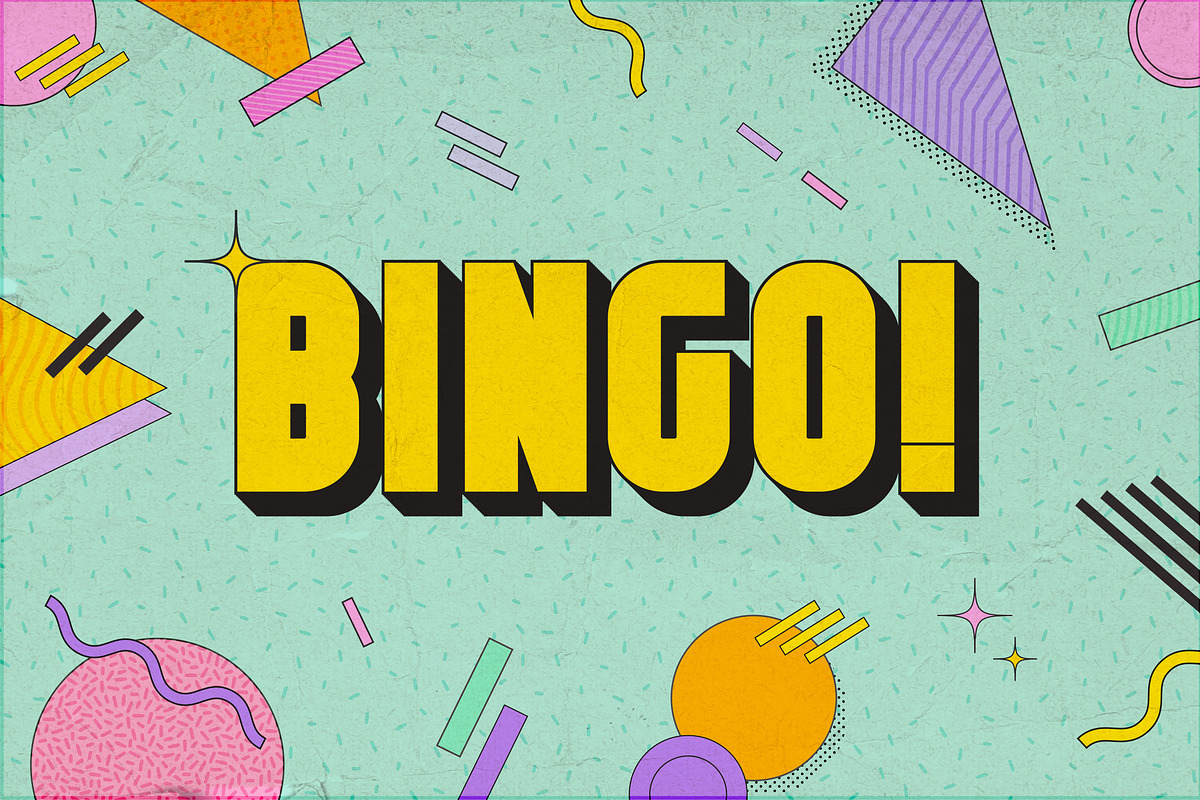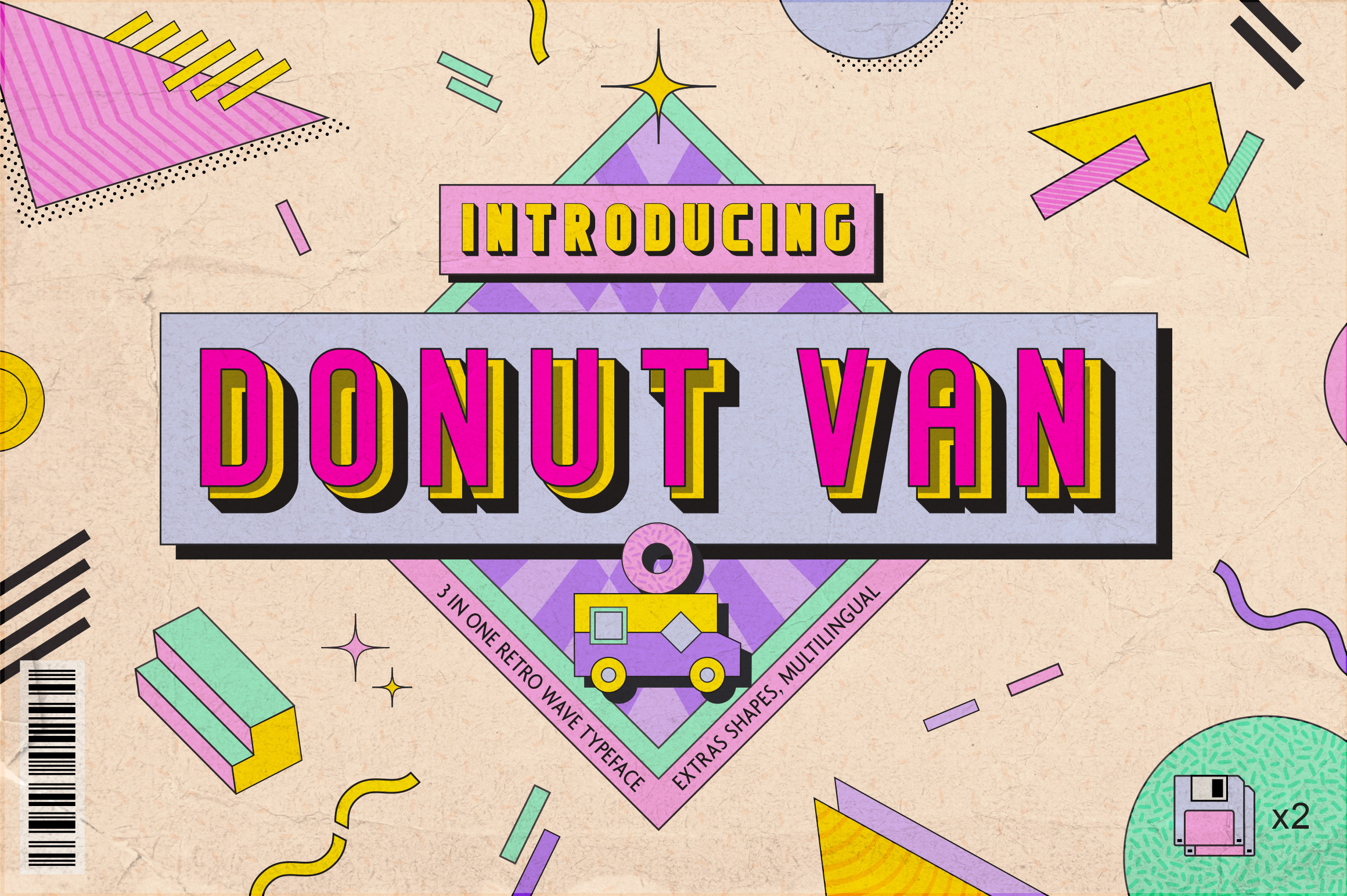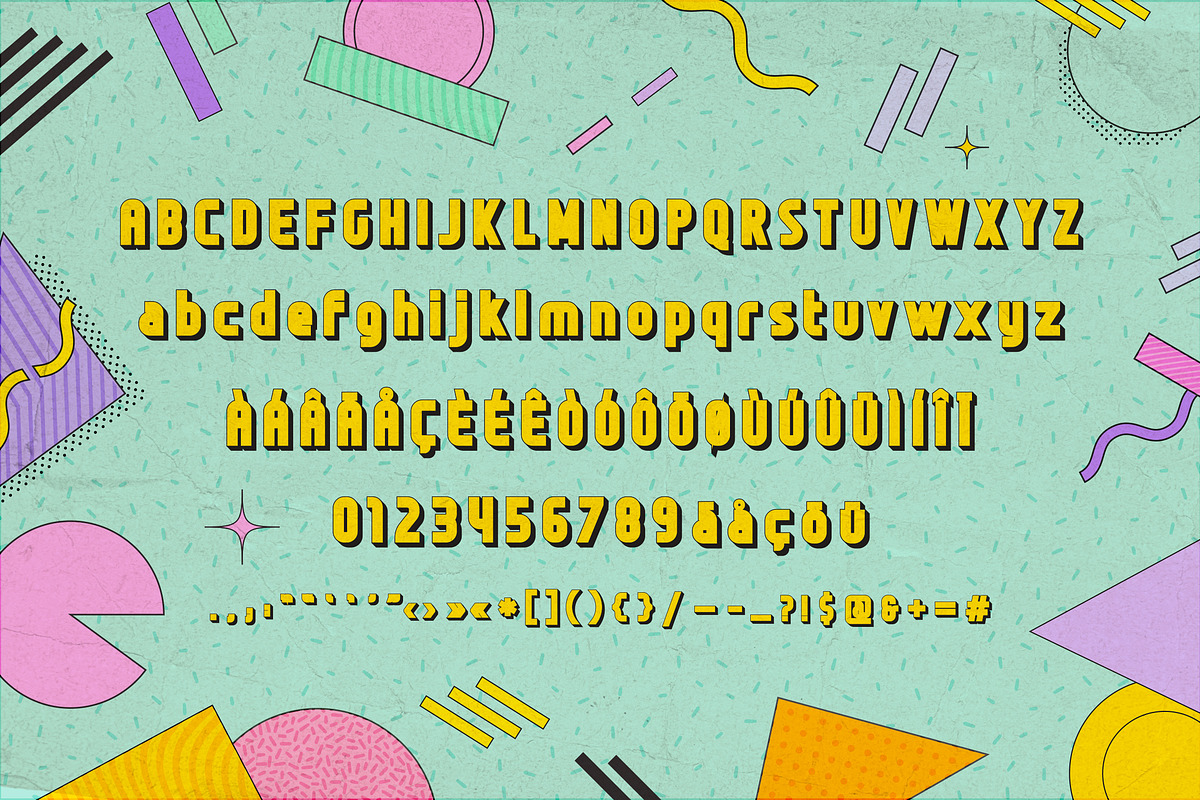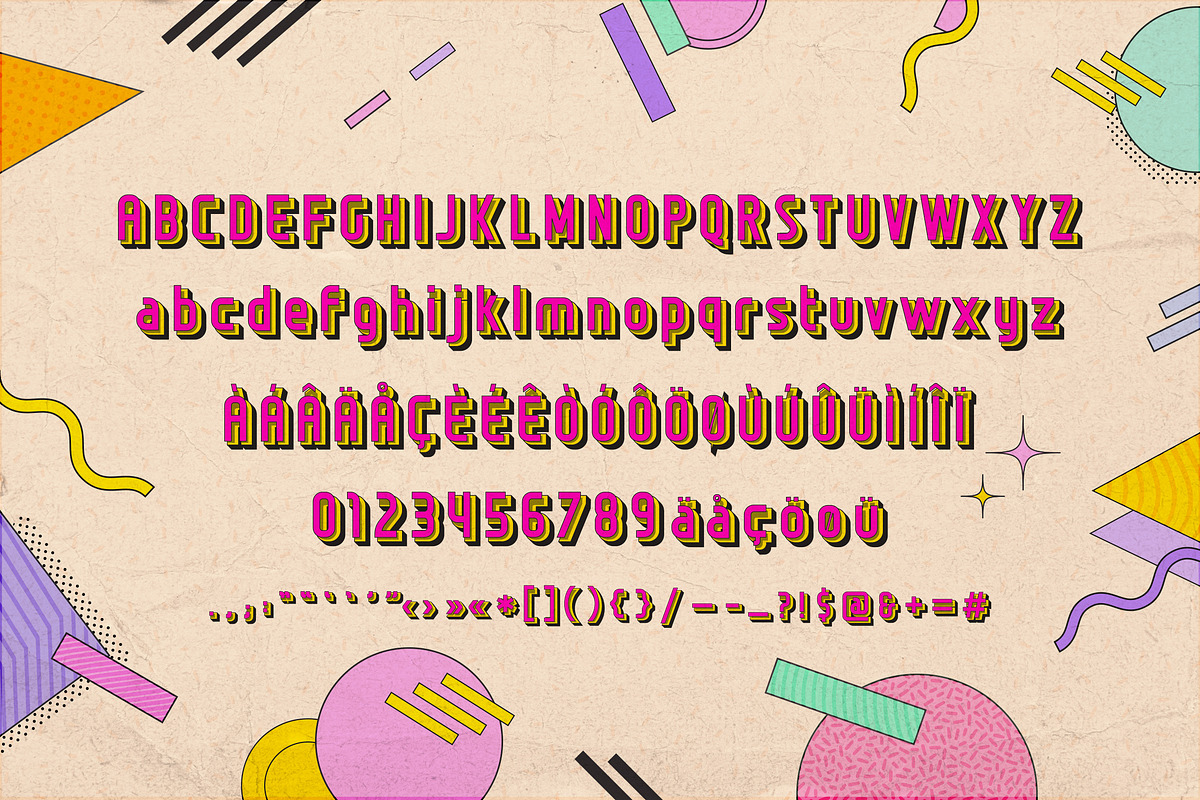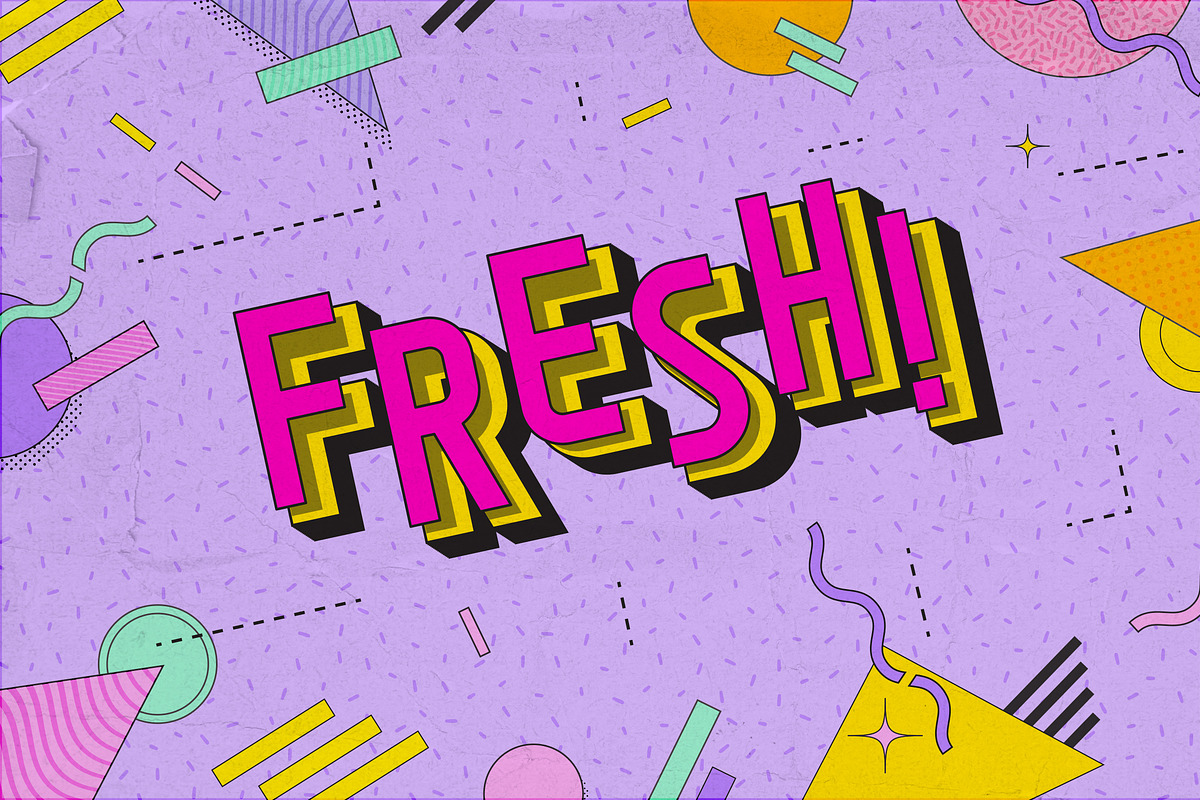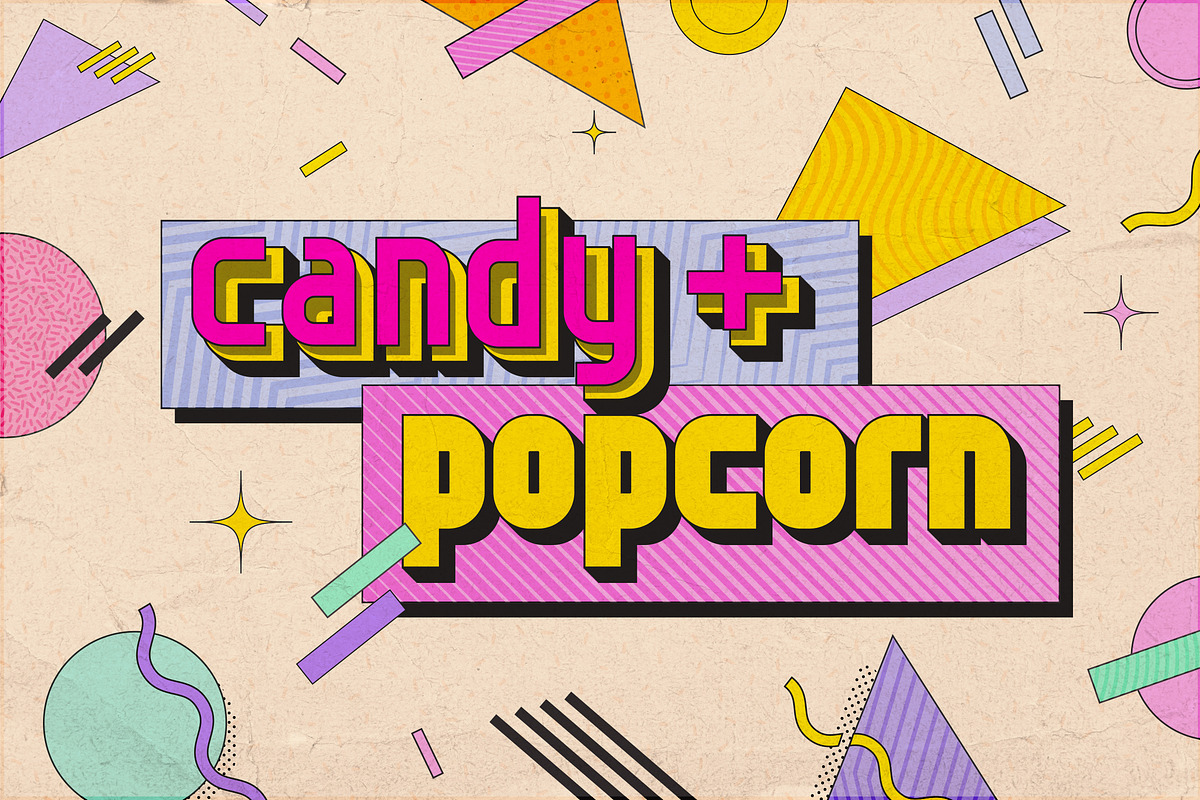
Donut Van | Trio Retro Wave Font
Introducing Donut Van - Trio (3 in 1) Colorful Font Family in sweet retro wave style with memphis trendy design. What a wonderful time it was! Sweet 80's and early 90's the time when you had VHS tapes with your favourite movies on the shelf under TV near your favourite board games. CDs and Laser Discs were on top of technology progress! This pack contains three styles of the Donut Van font with upper case, lower case, numbers, punctuation, multilingual and extra elements.
- Donut Van - Contains uppercase, lowercase characters with set of numerals and punctuation.
- Donut Van Pink - Contains uppercase, lowercase characters with set of numerals and punctuation.
- Donut Van Fatty - Contains uppercase, lowercase characters with set of numerals and punctuation.
- Set of Memphis graphic elements and shapes